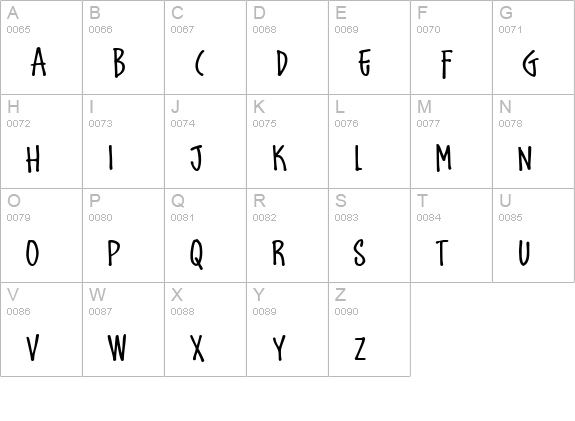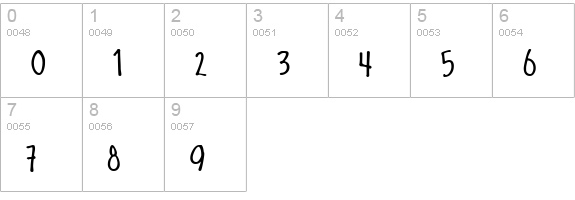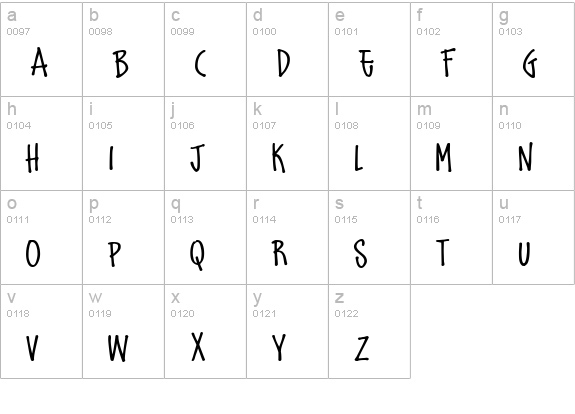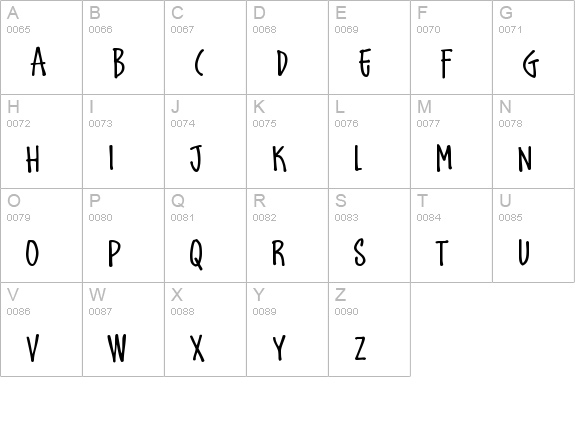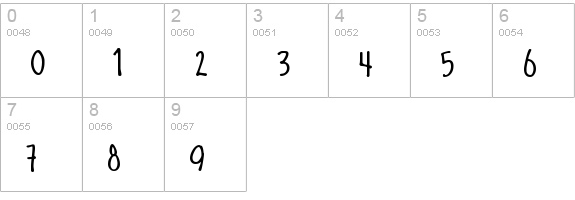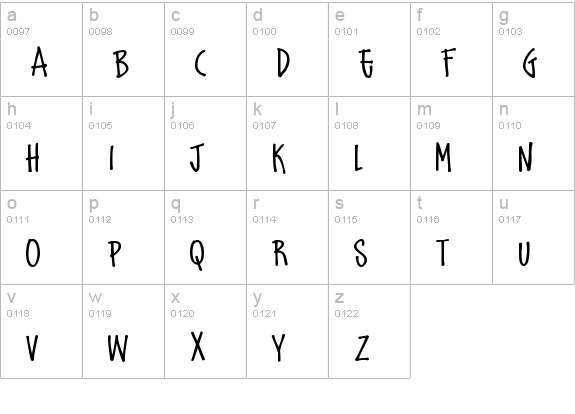
Schoolbully Font Details
Introducing Schoolbully font, a captivating typeface that adds a touch of rebelliousness and edginess to any design project. With its bold and assertive letterforms, Schoolbully is perfect for making a statement and commanding attention. This unique font captures the essence of a schoolyard bully, with its strong and impactful presence. Each letter is meticulously crafted to embody the confidence and intimidation associated with this character, making it an ideal choice for logos, branding, headlines, posters, and more. But what sets Schoolbully font apart is not just its striking design - it's also the fact that it is absolutely free. Yes, you read that right! This font is freely available to download at FontsMarket.com, allowing designers, creatives, and enthusiasts to easily access and incorporate this powerful typeface into their projects. Whether you're aiming to create a bold and rebellious brand identity, or simply want to add some attitude to your designs, Schoolbully font is the perfect choice. Its strong presence, combined with its availability as a free download, makes it a must-have for anyone looking to make a lasting impression. So don't miss out on this opportunity to enhance your design arsenal with Schoolbully font. Download it now from FontsMarket.com and unleash the power of this captivating typeface in your next project.